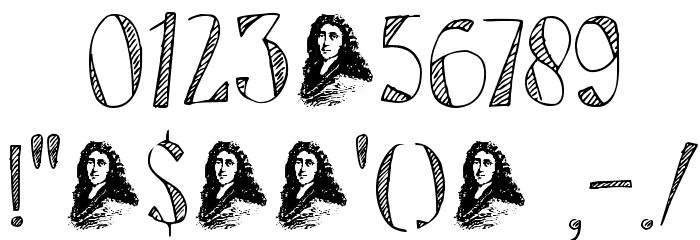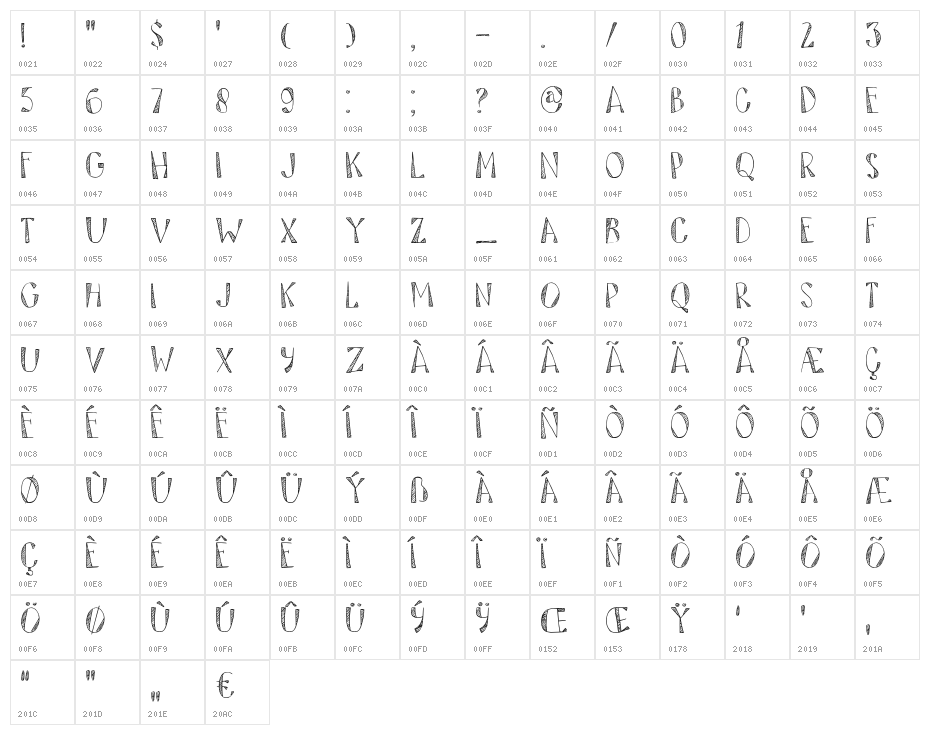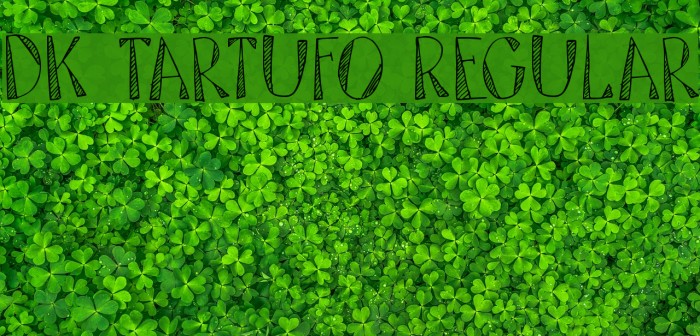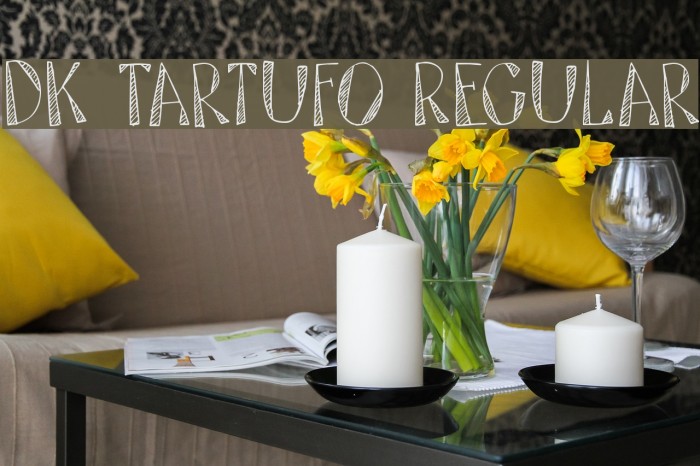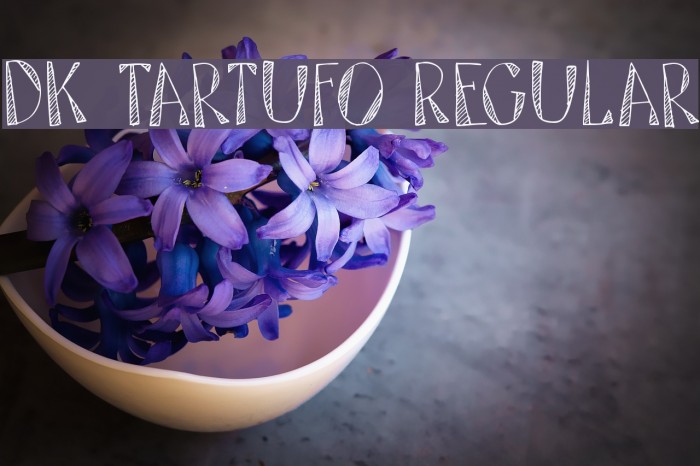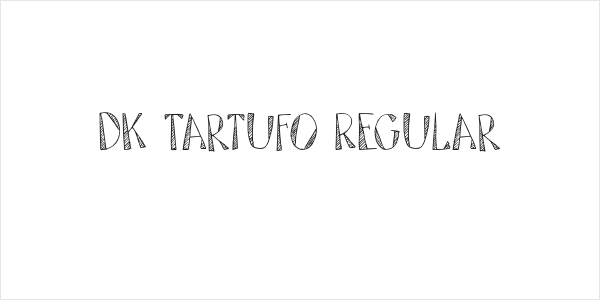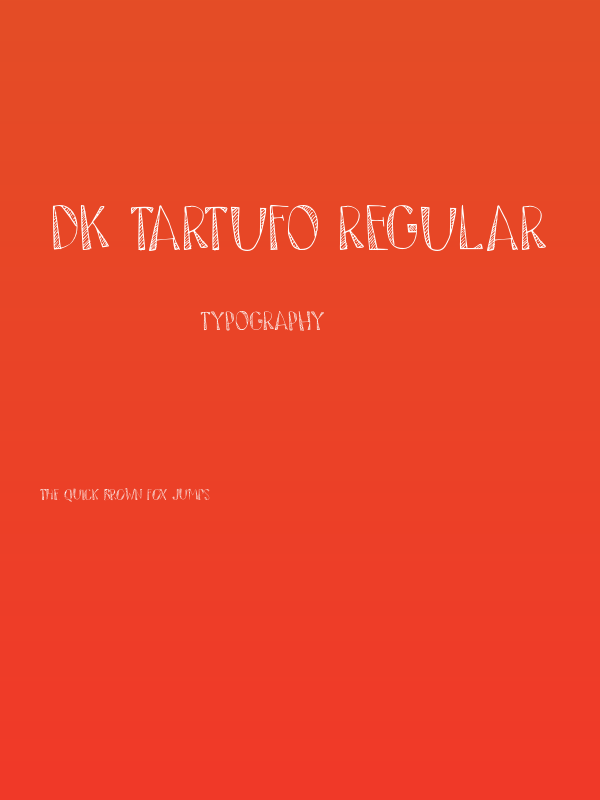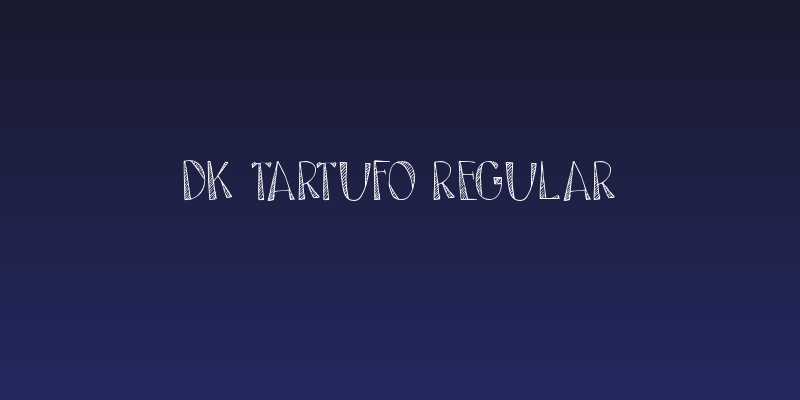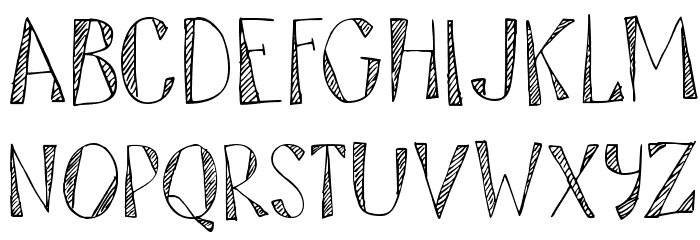
DK Tartufo Regular Font
DK Tartufo Regular Description
This font features a playful and artistic style with a hand-drawn appearance. Each letter is uniquely crafted with a sketch-like texture, giving it a whimsical and creative feel. The uppercase and lowercase letters maintain a consistent style, with a slight slant and irregular line thickness that adds to its charm. The numbers and special characters follow the same artistic approach, ensuring a cohesive look across all elements. The font's distinct personality makes it stand out, perfect for projects that require a touch of individuality and flair.